In October 2023, in celebration of Hangul Day, the upgraded 「YEOGIEOTTAE Jalnan-che」 and the newly designed 「YEOGIEOTTAE Jalnan-che Gothic」 were released. About five years after its original launch, the much-loved 「Jalnan-che」 was reborn once again.
Over the past five years, 「Jalnan-che」 has been used in a wide variety of contexts.
Looking back on the roughly six months that passed from reconnecting with YEOGIEOTTAE last March to the release of the fonts, the process felt much like a journey. Standing before many branching paths, discussing together which direction would be best, sharing opinions, and searching for a final destination — the experience closely resembled traveling. So shall we follow the journey of choices we made while renewing the font and creating a new one?
Where Should We Go?
Before setting out on this long design journey, we first needed to decide on our general direction — where we should be heading. Through a kickoff meeting, we learned about YEOGIEOTTAE’s current state and the direction it aims to move toward. YEOGIEOTTAE is seeking to expand beyond a domestic accommodation platform into a global travel platform, and in line with this shift, they hoped 「Jalnan-che」 would present a renewed image as well. Based on this, we analyzed the existing 「Jalnan-che」 data and identified points of discomfort, which helped us establish a clear overall direction.
The existing 「Jalnan-che」 carried several challenges. First, with only 2,350 characters, it posed limitations when expressing newly coined words and loanwords commonly used today. Second, the rounded upper stroke endings of 「Jalnan-che」 gave it a slightly cute impression, which made it less suitable for broader usage. To address these issues, we decided to expand the existing 「Jalnan-che」 to cover the full Hangul syllable set of 11,172 characters, while also refining the Latin characters and numerals that previously caused minor discomfort due to size differences relative to Hangul. In addition, we decided to newly design a title font with a more neutral impression capable of conveying a wider range of information.
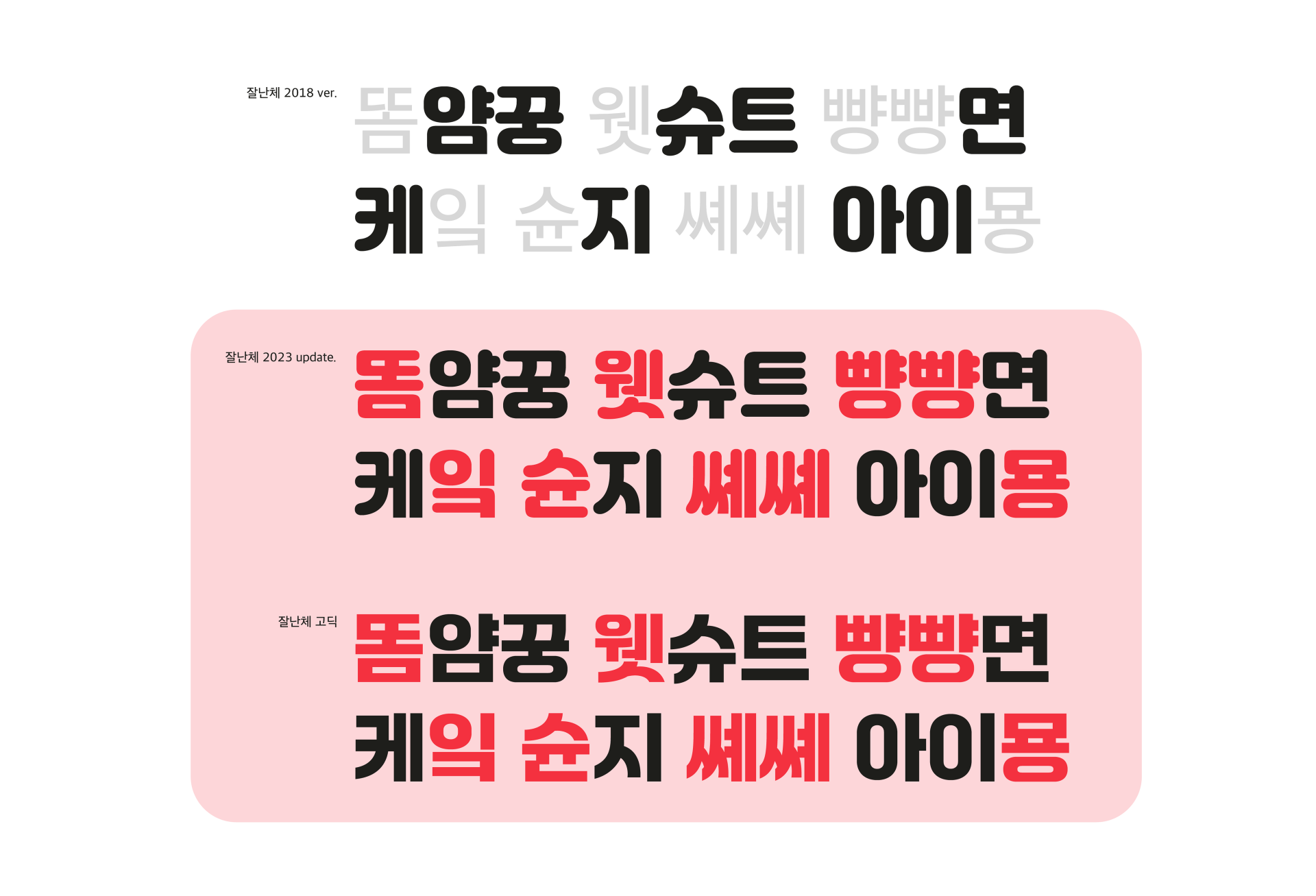
Words that became typable through the expansion to 11,172 characters
Twelve Fragmented Alleyways
With a clear destination set, it was time to explore the various paths leading there. After the initial kickoff meeting, we created a prototype for the new Gothic font. While preserving its distinctive lively character, we explored multiple approaches to create a font with improved readability. Ultimately, we selected an approach that maintained the existing structural framework while removing rounded stroke details and adjusting curvature and weight slightly to enhance legibility.
As we moved into full-scale font production, new issues began to surface — issues that could not be identified during the prototype stage. At YEOGIEOTTAE, decisions were made swiftly at each of these moments. Because the direction of “improving readability” was clear, we were able to consistently find our way forward. Below, we will look at the design in detail and share the moments of choice we encountered along the way.
1. Latin Characters and Numerals
Adjusting the Latin characters and numerals in the existing 「Jalnan-che」 did not present major difficulties. The YEOGIEOTTAE team first pointed out areas that felt awkward based on their experience using the original font.
Given the service’s nature, YEOGIEOTTAE frequently displays dates and prices. In the original 「Jalnan-che」, the Latin characters and numerals were designed slightly smaller than Hangul to match the aesthetic trends of the time. In addition, the numerals were designed close to fixed-width, which caused inconsistencies in perceived white space between different numbers. To resolve these issues, we aligned the size and positioning of the Latin characters and numerals with Hangul and modified the numerals to proportional widths so they could achieve more even white space.
Another decision arose while designing the numerals for the new 「Jalnan-che Gothic」 — specifically, the shapes of 6 and 9. We proposed three possible directions within the conceptual framework, and ultimately selected the final form based on its harmony with Hangul.
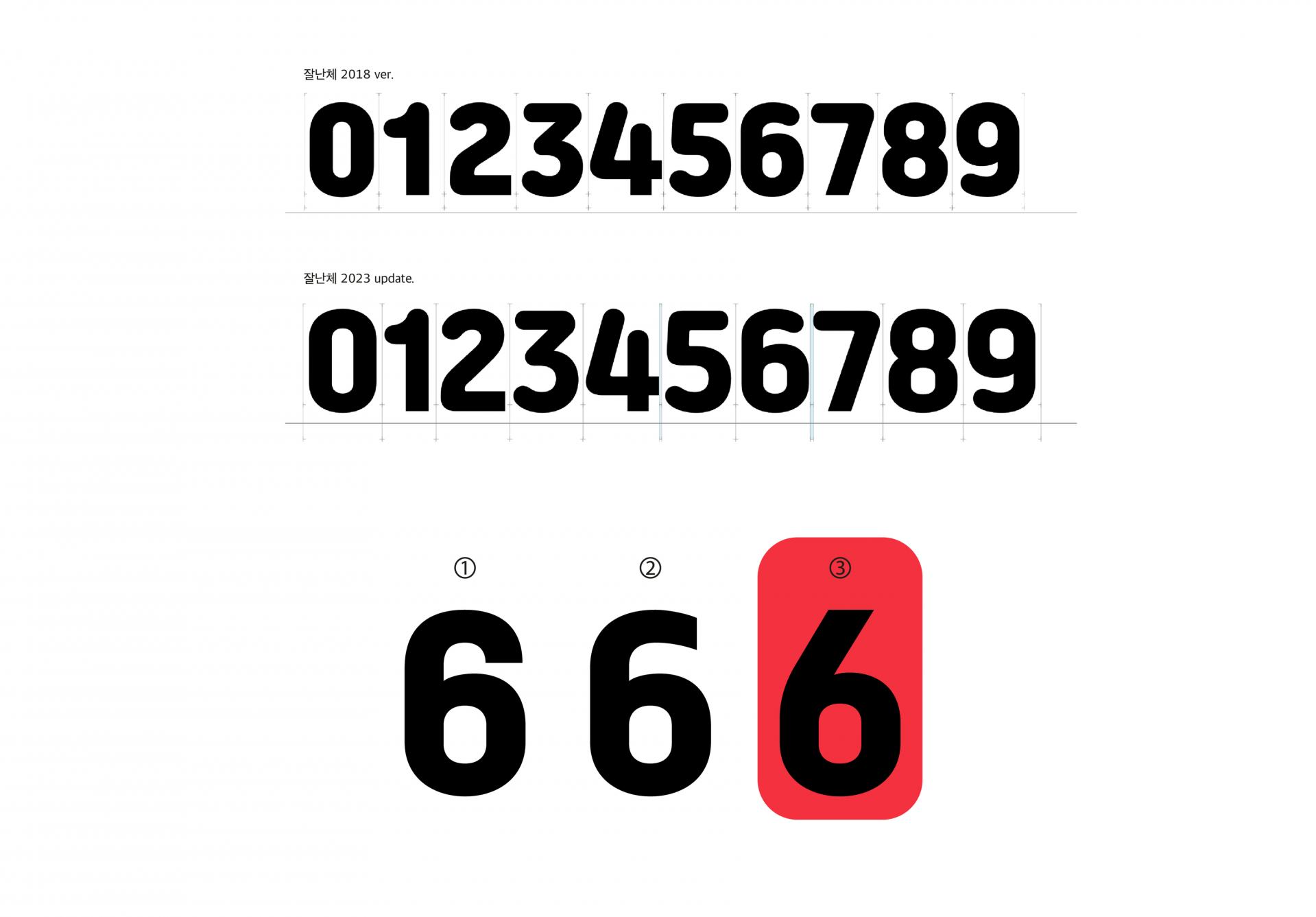
Near–fixed-width numerals in 「Jalnan-che」 2018 ver / Proportional-width numerals in 「Jalnan-che」 2023 ver / Various designs of the numeral “6”
2. The Shape of Curves
The existing 「Jalnan-che」 was characterized by expressive curves that conveyed a lively and witty impression. However, when distinctive forms are repeated too frequently, they can sometimes hinder readability. In 「Jalnan-che Gothic」, we prioritized legibility over expression, making the curvature more natural and, when necessary, removing certain characteristics through discussion.
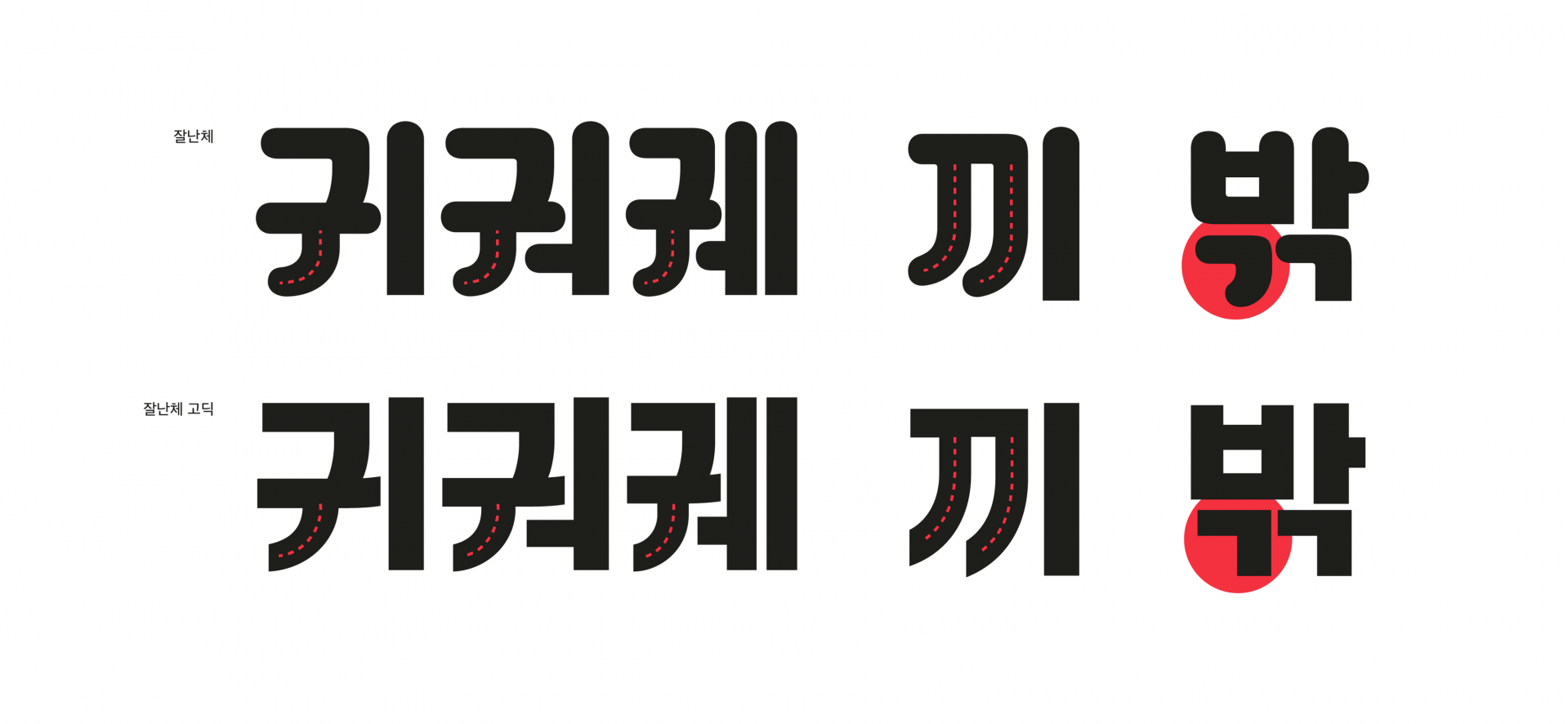
Comparison of curvature between 「Jalnan-che」 and 「Jalnan-che Gothic」
3. Detach or Connect?
In the original 「Jalnan-che」, the squared lower stroke endings and rounded upper stroke endings met in a way that allowed clear distinction between components. In 「Jalnan-che Gothic」, however, the removal of rounded stroke endings led to increased collisions between strokes in certain characters. Similarly, in the upgraded 「Jalnan-che」, newly designed combinations of double final consonants and the vowel ‘ㅠ’ introduced new instances of stroke collision.
To resolve this, we needed to reorganize the internal structure of characters. You can see traces of this 고민 in the characters shown below. After extensive testing and discussion, we ultimately decided, for the sake of legibility, to fully separate the medial and final consonants in double-final consonant cases for both 「Jalnan-che Gothic」 and the upgraded 「Jalnan-che」.
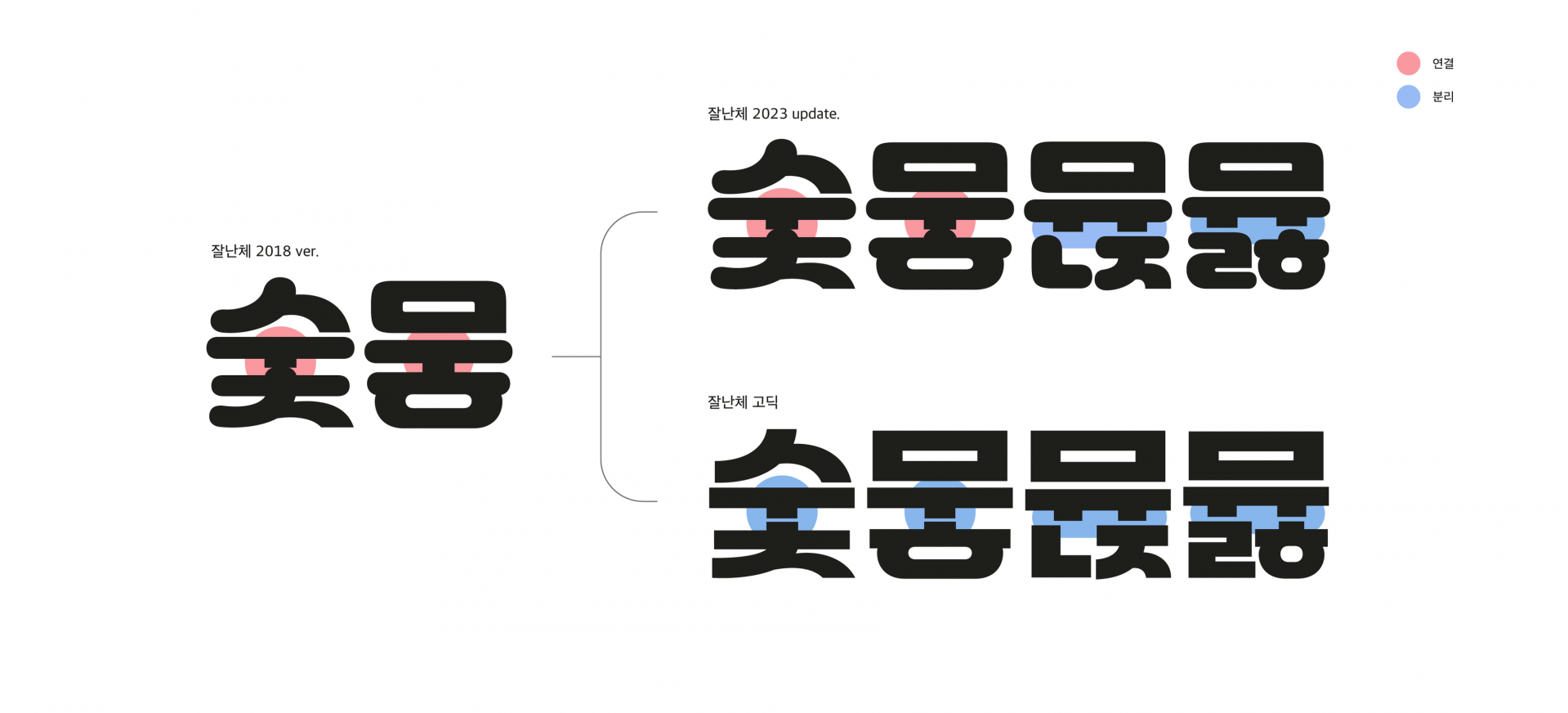
Strokes between components that are connected or separated depending on the case
In addition, the creation of characters that had not existed before led to another issue — the legibility of ‘ㅍ’. In order to emphasize the characteristic rounded upper stroke endings, the horizontal and vertical strokes of ‘ㅍ’ were designed separately, which caused confusion with the vowel ‘ㅛ’. During the mid-review process, the YEOGIEOTTAE team first pointed out this issue. As a result, we tested various forms of ‘ㅍ’ based on multiple criteria.
After examining the pros and cons of each approach, we made the following decisions in line with each font’s direction: in 「Jalnan-che Gothic」, to improve legibility and readability, the initial ‘ㅍ’ is separated while the final ‘ㅍ’ is connected; in 「Jalnan-che」, to better preserve the characteristic rounded stroke endings, we decided to maintain the existing design in which both the initial and final ‘ㅍ’ are separated.
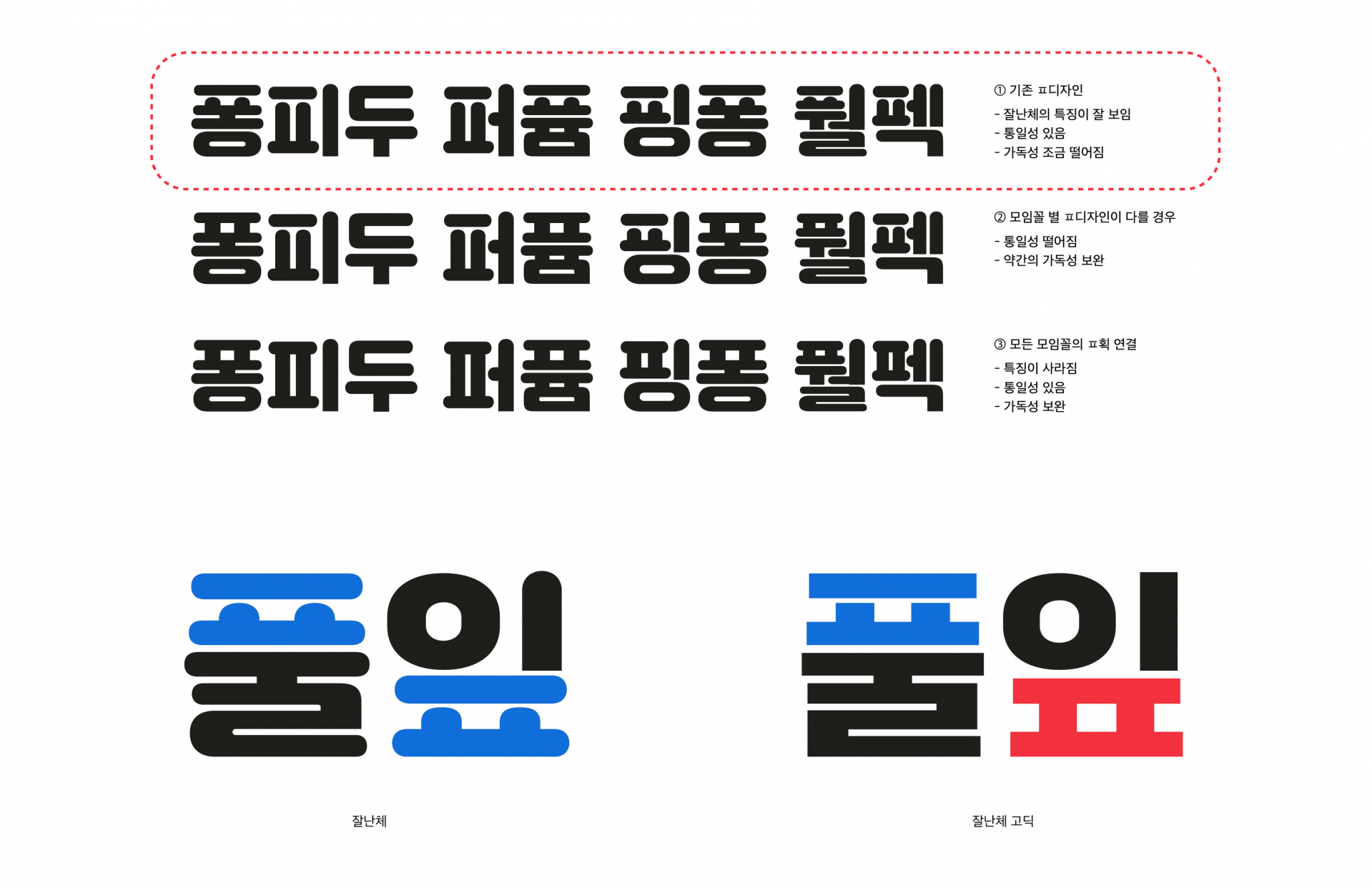
Various tested forms of the initial ‘ㅍ’ and the final selected design of ‘ㅍ’
There were many more detailed points of consideration, but sharing them all would make this scroll far too long. So at this point, let us show you the completed 「Jalnan-che」 and 「Jalnan-che Gothic」.
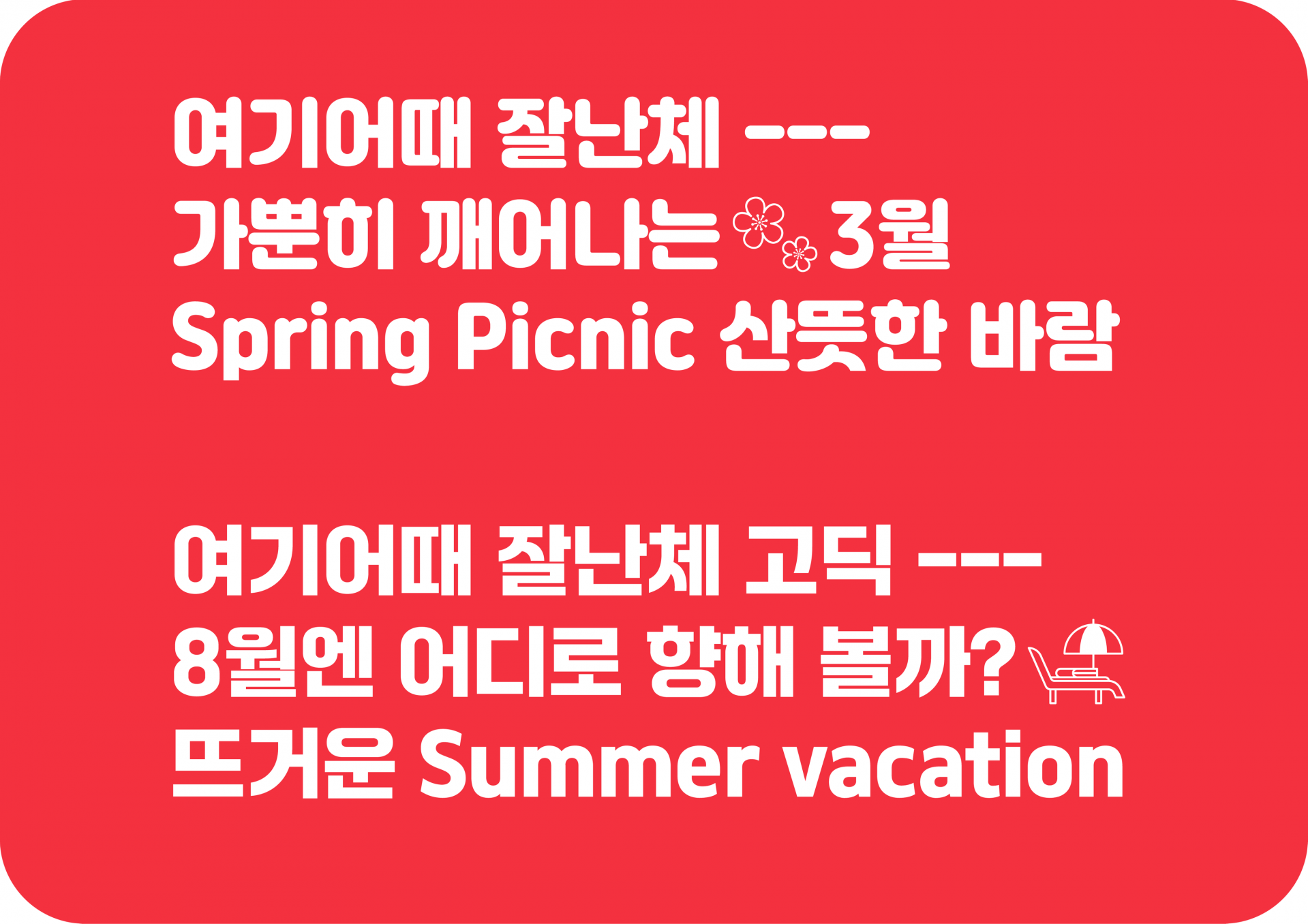
The completed 「Jalnan-che」 and 「Jalnan-che Gothic」
The True Charm of Travel Lies in Unexpected Small Delights
From the planning stage, YEOGIEOTTAE expressed a desire to add travel-related dingbats to the font. Building on this idea, we proposed applying an OpenType feature that converts specific character combinations into dingbats, making them easy for users to access. Ultimately, this resulted in the creation of 127 charming dingbats.
The dingbats were produced through a process in which YEOGIEOTTAE designers provided the designs, and Sandoll designers converted them into font assets. Even in this process, there were countless decisions to be made regarding size, spacing, and more. After multiple rounds of testing and feedback, we prioritized usability and determined sizes and spacing that harmonized well with the font.
These small yet carefully considered dingbats can be accessed by combining # with travel-related words. We hope users will enjoy typing various travel-related words after # and discovering these unexpected little pleasures.
Concluding a Delightful Journey with YEOGIEOTTAE
With this, the short yet long six-month design journey came to an end. Even after the font release, various promotional activities followed. Among them, the most memorable moment was meeting Song, the project lead from YEOGIEOTTAE, and conducting an interview with Fortune Korea (Link), which allowed us to reflect on and wrap up the project together. In addition, YEOGIEOTTAE has published an article (Link) that provides a more detailed look into the branding process. If you would like to see 「Jalnan-che」 introduced alongside beautiful graphics, please refer to this website (Link).
Looking back, we believe that we were able to pass through countless moments of choice safely because we shared opinions, set priorities, and kept moving toward our destination together. The process of numerous big and small choices coming together to form a single outcome felt both fascinating and deeply rewarding. We hope you will show much love for YEOGIEOTTAE 「Jalnan-che」 and 「Jalnan-che Gothic」, which embody both playfulness and solidity, just like the YEOGIEOTTAE brand. And we hope that everyone who reads this piece will enjoy, even briefly, the fun and pleasure of traveling through the small world within a font.
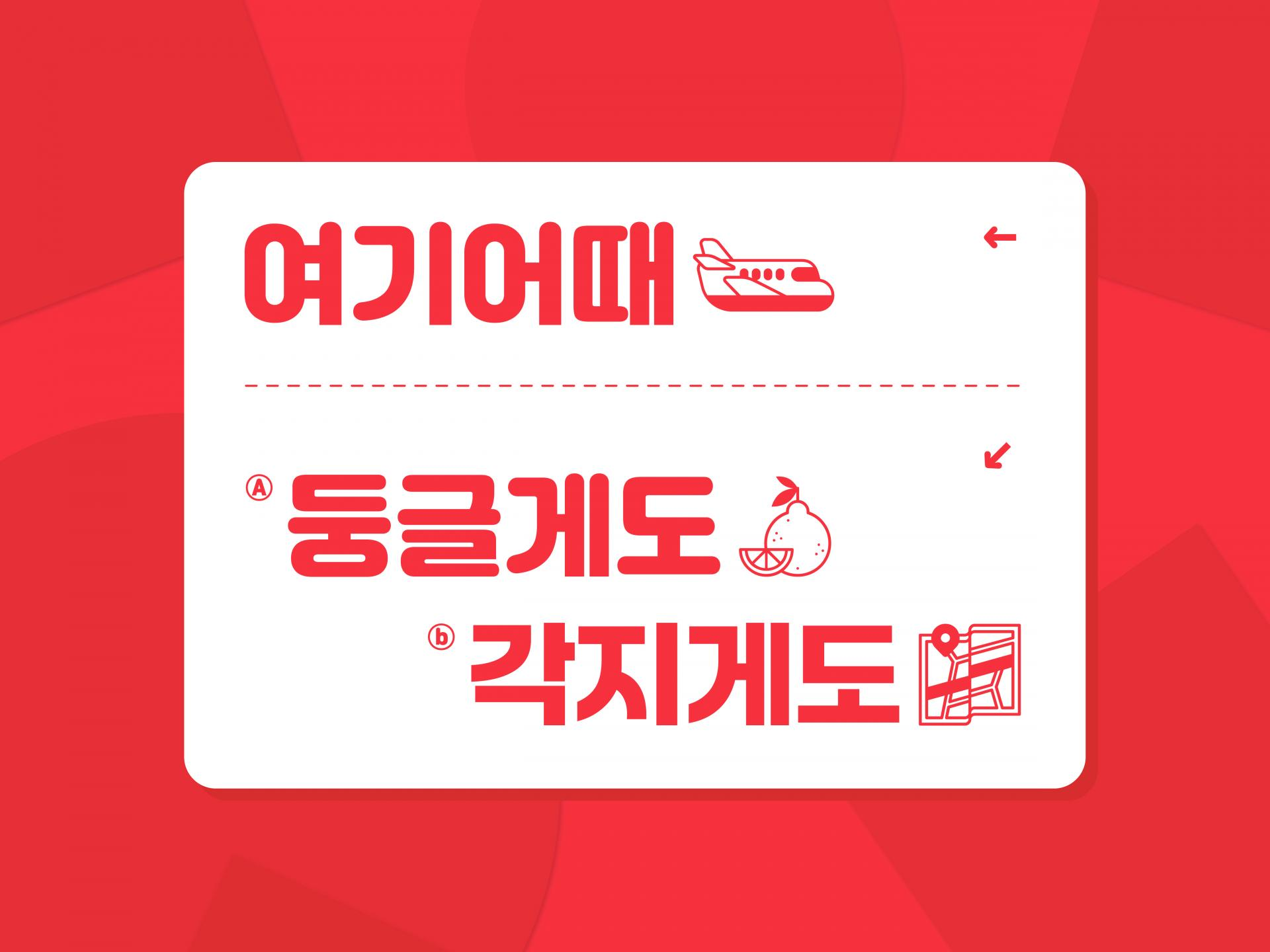
Type Branding
Life Is a Series of Choices — Travel, and Fonts
In October 2023, in celebration of Hangul Day, the upgraded 「YEOGIEOTTAE Jalnan-che」 and the newly designed 「YEOGIEOTTAE Jalnan-che Gothic」 were released. About five years after its original launch, the much-loved 「Jalnan-che」 was reborn once again.
Over the past five years, 「Jalnan-che」 has been used in a wide variety of contexts.
Image source: Seongdong-gu Office website
Looking back on the roughly six months that passed from reconnecting with YEOGIEOTTAE last March to the release of the fonts, the process felt much like a journey. Standing before many branching paths, discussing together which direction would be best, sharing opinions, and searching for a final destination — the experience closely resembled traveling. So shall we follow the journey of choices we made while renewing the font and creating a new one?
Where Should We Go?
Before setting out on this long design journey, we first needed to decide on our general direction — where we should be heading. Through a kickoff meeting, we learned about YEOGIEOTTAE’s current state and the direction it aims to move toward. YEOGIEOTTAE is seeking to expand beyond a domestic accommodation platform into a global travel platform, and in line with this shift, they hoped 「Jalnan-che」 would present a renewed image as well. Based on this, we analyzed the existing 「Jalnan-che」 data and identified points of discomfort, which helped us establish a clear overall direction.
The existing 「Jalnan-che」 carried several challenges. First, with only 2,350 characters, it posed limitations when expressing newly coined words and loanwords commonly used today. Second, the rounded upper stroke endings of 「Jalnan-che」 gave it a slightly cute impression, which made it less suitable for broader usage. To address these issues, we decided to expand the existing 「Jalnan-che」 to cover the full Hangul syllable set of 11,172 characters, while also refining the Latin characters and numerals that previously caused minor discomfort due to size differences relative to Hangul. In addition, we decided to newly design a title font with a more neutral impression capable of conveying a wider range of information.
Words that became typable through the expansion to 11,172 characters
Twelve Fragmented Alleyways
With a clear destination set, it was time to explore the various paths leading there. After the initial kickoff meeting, we created a prototype for the new Gothic font. While preserving its distinctive lively character, we explored multiple approaches to create a font with improved readability. Ultimately, we selected an approach that maintained the existing structural framework while removing rounded stroke details and adjusting curvature and weight slightly to enhance legibility.
As we moved into full-scale font production, new issues began to surface — issues that could not be identified during the prototype stage. At YEOGIEOTTAE, decisions were made swiftly at each of these moments. Because the direction of “improving readability” was clear, we were able to consistently find our way forward. Below, we will look at the design in detail and share the moments of choice we encountered along the way.
1. Latin Characters and Numerals
Adjusting the Latin characters and numerals in the existing 「Jalnan-che」 did not present major difficulties. The YEOGIEOTTAE team first pointed out areas that felt awkward based on their experience using the original font.
Given the service’s nature, YEOGIEOTTAE frequently displays dates and prices. In the original 「Jalnan-che」, the Latin characters and numerals were designed slightly smaller than Hangul to match the aesthetic trends of the time. In addition, the numerals were designed close to fixed-width, which caused inconsistencies in perceived white space between different numbers. To resolve these issues, we aligned the size and positioning of the Latin characters and numerals with Hangul and modified the numerals to proportional widths so they could achieve more even white space.
Another decision arose while designing the numerals for the new 「Jalnan-che Gothic」 — specifically, the shapes of 6 and 9. We proposed three possible directions within the conceptual framework, and ultimately selected the final form based on its harmony with Hangul.
Near–fixed-width numerals in 「Jalnan-che」 2018 ver / Proportional-width numerals in 「Jalnan-che」 2023 ver / Various designs of the numeral “6”
2. The Shape of Curves
The existing 「Jalnan-che」 was characterized by expressive curves that conveyed a lively and witty impression. However, when distinctive forms are repeated too frequently, they can sometimes hinder readability. In 「Jalnan-che Gothic」, we prioritized legibility over expression, making the curvature more natural and, when necessary, removing certain characteristics through discussion.
Comparison of curvature between 「Jalnan-che」 and 「Jalnan-che Gothic」
3. Detach or Connect?
In the original 「Jalnan-che」, the squared lower stroke endings and rounded upper stroke endings met in a way that allowed clear distinction between components. In 「Jalnan-che Gothic」, however, the removal of rounded stroke endings led to increased collisions between strokes in certain characters. Similarly, in the upgraded 「Jalnan-che」, newly designed combinations of double final consonants and the vowel ‘ㅠ’ introduced new instances of stroke collision.
To resolve this, we needed to reorganize the internal structure of characters. You can see traces of this 고민 in the characters shown below. After extensive testing and discussion, we ultimately decided, for the sake of legibility, to fully separate the medial and final consonants in double-final consonant cases for both 「Jalnan-che Gothic」 and the upgraded 「Jalnan-che」.
Strokes between components that are connected or separated depending on the case
In addition, the creation of characters that had not existed before led to another issue — the legibility of ‘ㅍ’. In order to emphasize the characteristic rounded upper stroke endings, the horizontal and vertical strokes of ‘ㅍ’ were designed separately, which caused confusion with the vowel ‘ㅛ’. During the mid-review process, the YEOGIEOTTAE team first pointed out this issue. As a result, we tested various forms of ‘ㅍ’ based on multiple criteria.
After examining the pros and cons of each approach, we made the following decisions in line with each font’s direction: in 「Jalnan-che Gothic」, to improve legibility and readability, the initial ‘ㅍ’ is separated while the final ‘ㅍ’ is connected; in 「Jalnan-che」, to better preserve the characteristic rounded stroke endings, we decided to maintain the existing design in which both the initial and final ‘ㅍ’ are separated.
Various tested forms of the initial ‘ㅍ’ and the final selected design of ‘ㅍ’
There were many more detailed points of consideration, but sharing them all would make this scroll far too long. So at this point, let us show you the completed 「Jalnan-che」 and 「Jalnan-che Gothic」.
The completed 「Jalnan-che」 and 「Jalnan-che Gothic」
The True Charm of Travel Lies in Unexpected Small Delights
From the planning stage, YEOGIEOTTAE expressed a desire to add travel-related dingbats to the font. Building on this idea, we proposed applying an OpenType feature that converts specific character combinations into dingbats, making them easy for users to access. Ultimately, this resulted in the creation of 127 charming dingbats.
The dingbats were produced through a process in which YEOGIEOTTAE designers provided the designs, and Sandoll designers converted them into font assets. Even in this process, there were countless decisions to be made regarding size, spacing, and more. After multiple rounds of testing and feedback, we prioritized usability and determined sizes and spacing that harmonized well with the font.
These small yet carefully considered dingbats can be accessed by combining # with travel-related words. We hope users will enjoy typing various travel-related words after # and discovering these unexpected little pleasures.
Concluding a Delightful Journey with YEOGIEOTTAE
With this, the short yet long six-month design journey came to an end. Even after the font release, various promotional activities followed. Among them, the most memorable moment was meeting Song, the project lead from YEOGIEOTTAE, and conducting an interview with Fortune Korea (Link), which allowed us to reflect on and wrap up the project together. In addition, YEOGIEOTTAE has published an article (Link) that provides a more detailed look into the branding process. If you would like to see 「Jalnan-che」 introduced alongside beautiful graphics, please refer to this website (Link).
Looking back, we believe that we were able to pass through countless moments of choice safely because we shared opinions, set priorities, and kept moving toward our destination together. The process of numerous big and small choices coming together to form a single outcome felt both fascinating and deeply rewarding. We hope you will show much love for YEOGIEOTTAE 「Jalnan-che」 and 「Jalnan-che Gothic」, which embody both playfulness and solidity, just like the YEOGIEOTTAE brand. And we hope that everyone who reads this piece will enjoy, even briefly, the fun and pleasure of traveling through the small world within a font.